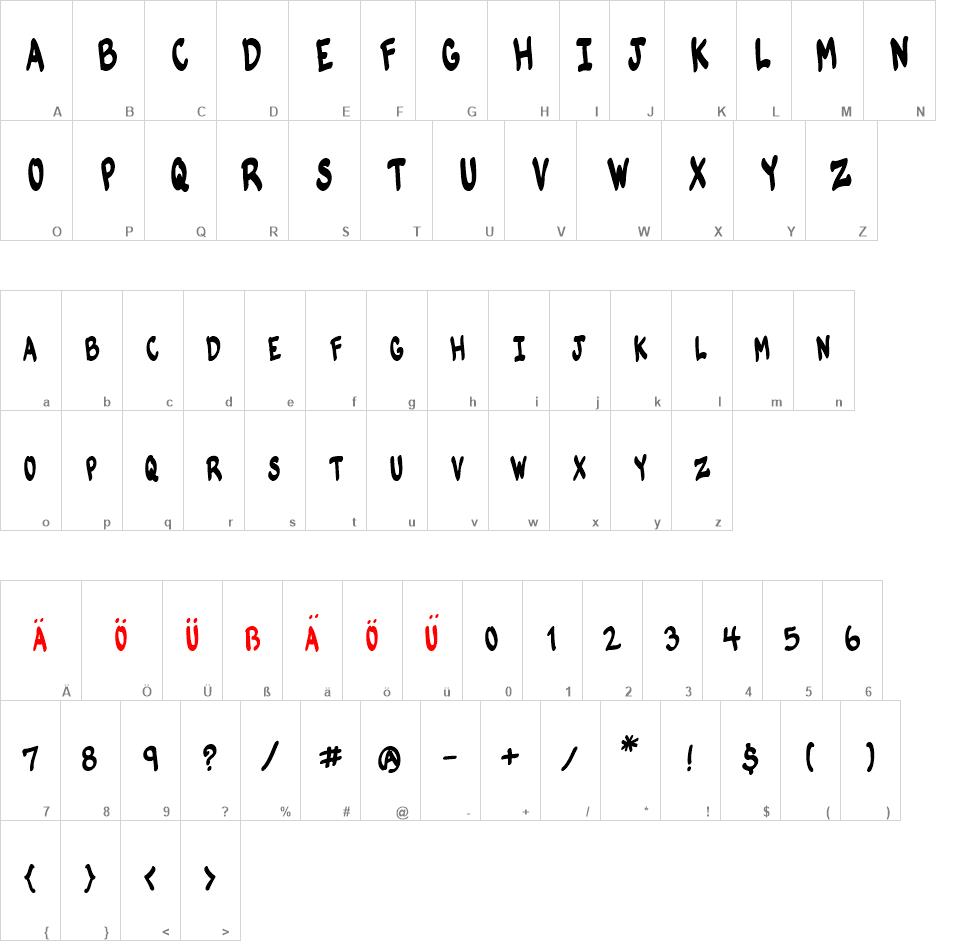
VTC Komik Skans
VTC Komik Skans font
As I am getting used to drawing with the Wacom tablet in illustrator
I figured I would do a new Comic face Since it's been a while since I made one of those.This is all by hand with the tablet using just some basic guidelines to draw within.